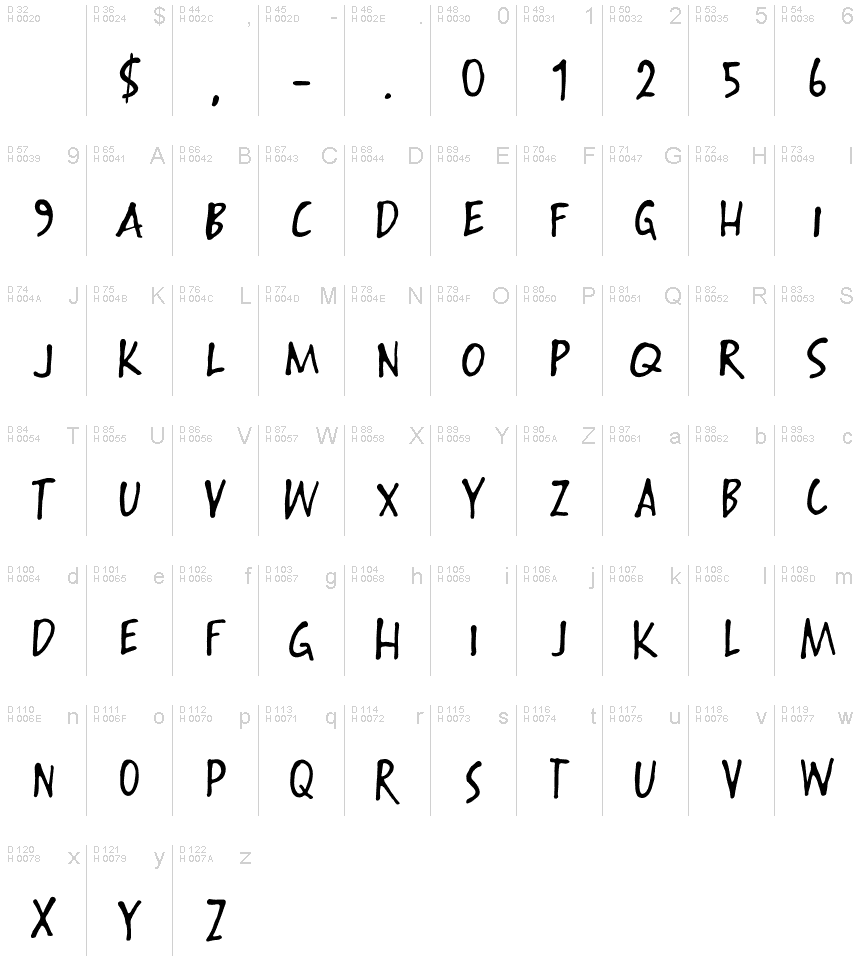
Night Delivery DEMO Regular
Night Delivery is a charming semi-light handwritten font designed by D K. Its semi-condensed width adds an element of sophistication to its playful style, making it perfect for projects that demand a balance of whimsy and professionalism. This font is ideal for branding, packaging design, invitations, and social media graphics. Its unique character set allows you to add a personal touch to any project while still maintaining readability. Whether you're designing for a bakery or a boutique clothing store, Night Delivery is the perfect choice for your next project!